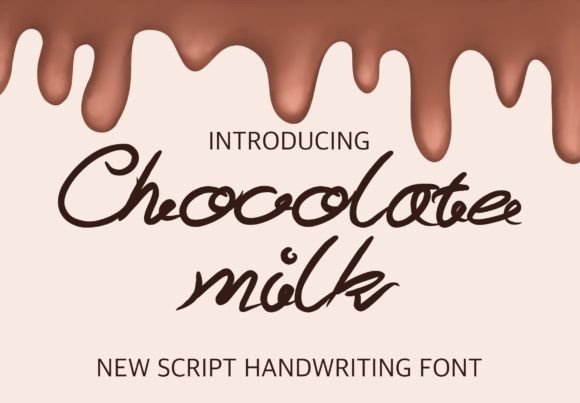
Step into a world of enchanting elegance with Chocolate Milk Font, the captivating script font that will transform your creative visions into masterpieces. Handcrafted with meticulous attention to detail, this font exudes a timeless charm that will elevate your designs to new heights.
Indulge in the joy of crafting personalized Christmas cards, where each word is a delicate brushstroke of festive cheer. Let your imagination run wild as you create invitations that capture the essence of any occasion, from whimsical birthday bashes to sophisticated corporate events.
Unleash your creativity with digital designs that ooze sophistication and charm, leaving a lasting impression on your audience. Amplify the impact of your presentations with a font that commands attention and conveys your message with eloquence. Elevate your greeting cards to new levels of artistry, making each one a cherished keepsake that evokes emotions and creates lasting memories.
Chocolate Milk Font is more than just a font; it's an extension of your creative spirit, a tool that empowers you to turn your ideas into tangible expressions of beauty. Embrace the versatility of this font and watch as it transforms your projects into works of art, leaving a trail of admiration and inspiration wherever it goes.